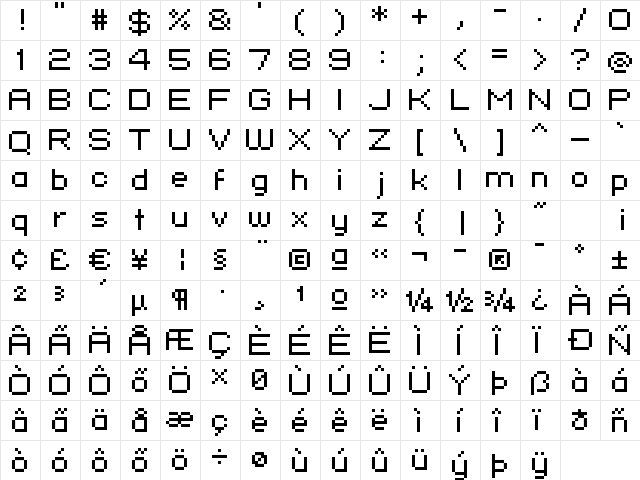
standard 07_52 Regular
Design Context for standard 07_52 Typeface
standard 07_52 takes a measured approach to typography — its balanced proportions and neutral character make it a reliable workhorse for both digital and print work.
Pro Tip: Use standard 07_52 in both headline and body roles to test its range before committing to a single application.